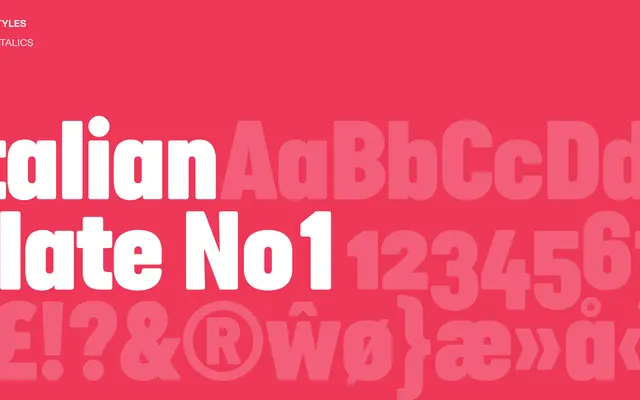
Italian Plate No1
A grotesque sans drawn from the visual language of mid-century Italian number plate lettering.
Rooted in the industrial lettering conventions of Italian automotive registration plates, this typeface carries the functional character of mid-century European signage. The design channels a specific vernacular source, giving it a flavour distinct from the broader grotesque tradition. Suited to projects requiring a period-inflected European sans with graphic directness.
Italian Plate No1 draws from the tradition of European grotesque sans-serifs, with a character reminiscent of mid-century industrial lettering found on Italian number plates and signage.